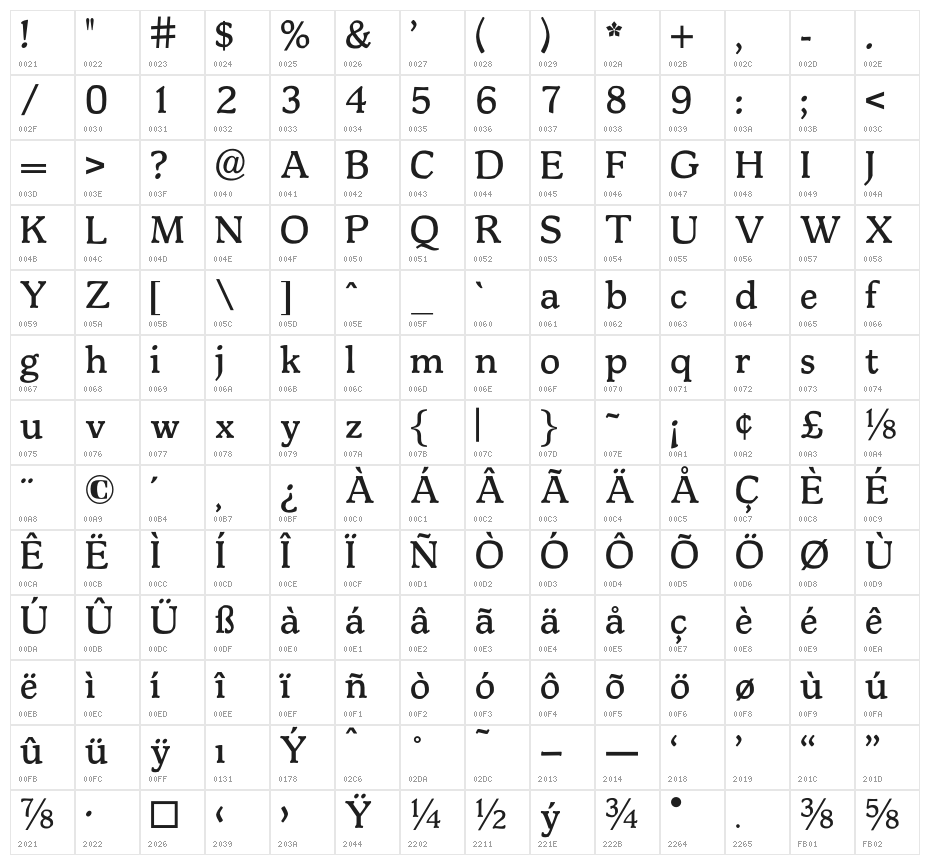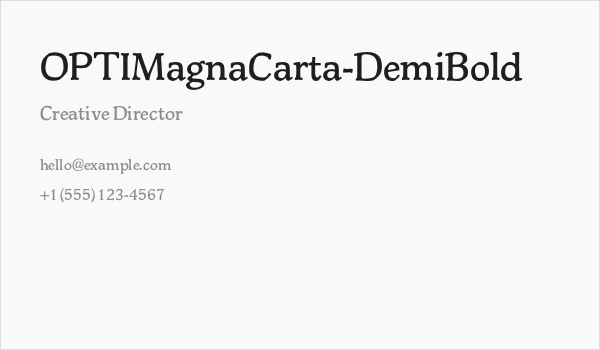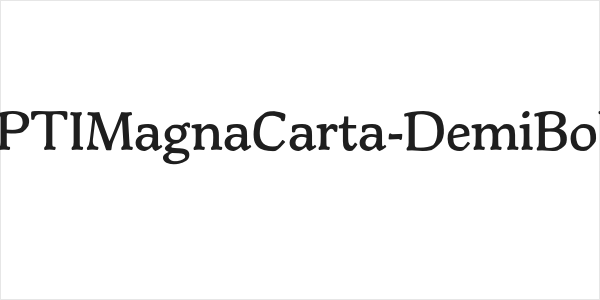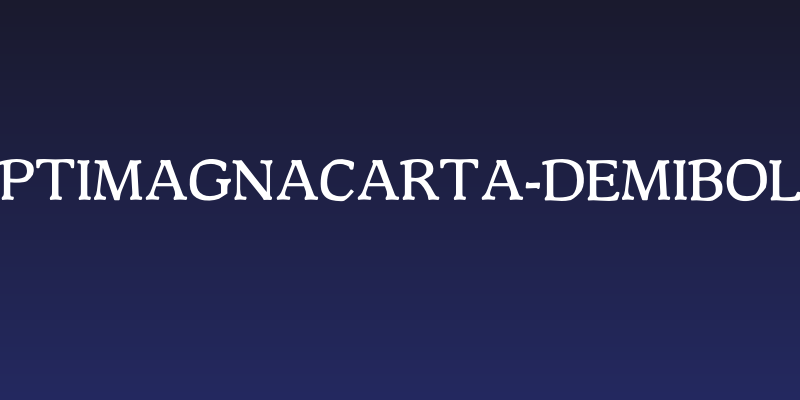
OPTIMagnaCarta-DemiBold Font
OPTIMagnaCarta-DemiBold Description
This font exhibits a classic serif style with a strong presence, characterized by its bold and slightly condensed letterforms. The serifs are pronounced, adding a touch of elegance and tradition. The uppercase letters are well-proportioned, while the lowercase letters maintain a consistent flow, enhancing readability. The numerals are clear and distinct, making them suitable for both text and display purposes. Special characters are thoughtfully designed, maintaining the overall aesthetic of the font. The stroke contrast is medium, providing a balanced appearance that is neither too stark nor too subtle.
| Proposed Projects | Ideal for use in editorial design, book covers, formal invitations, and branding projects that require a touch of tradition and sophistication. |